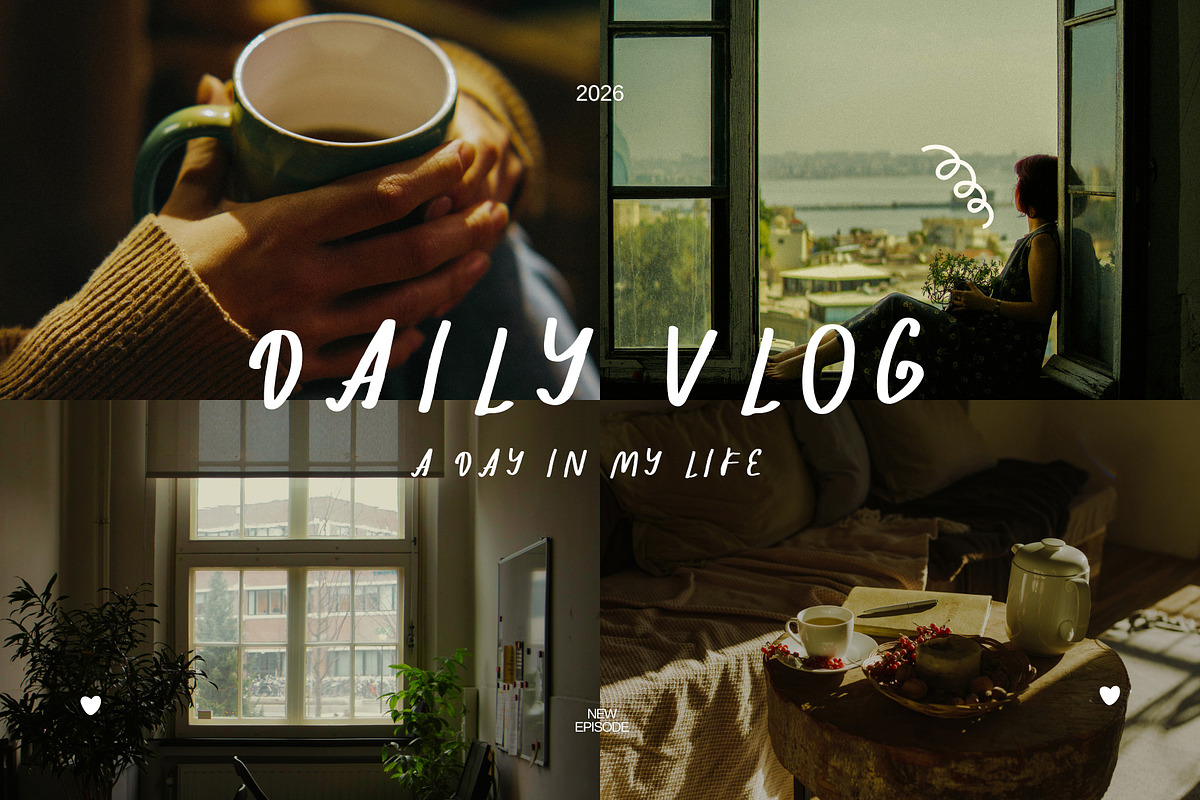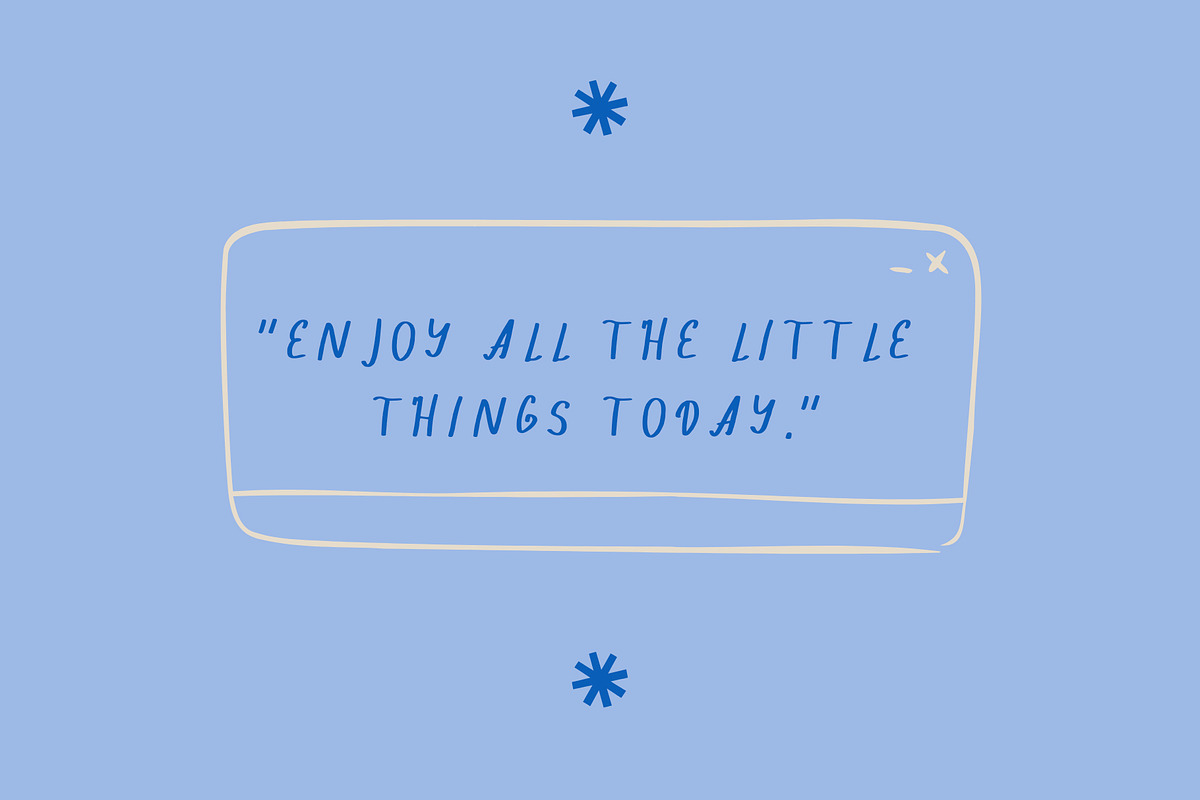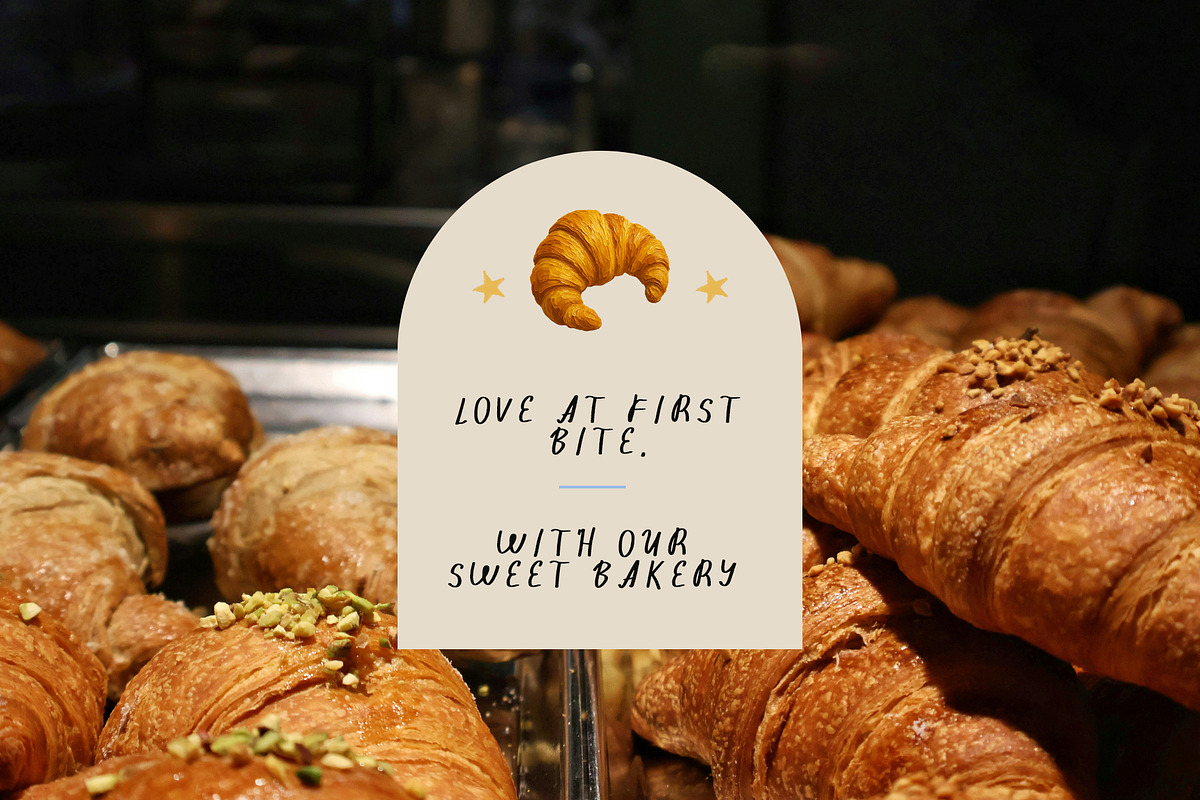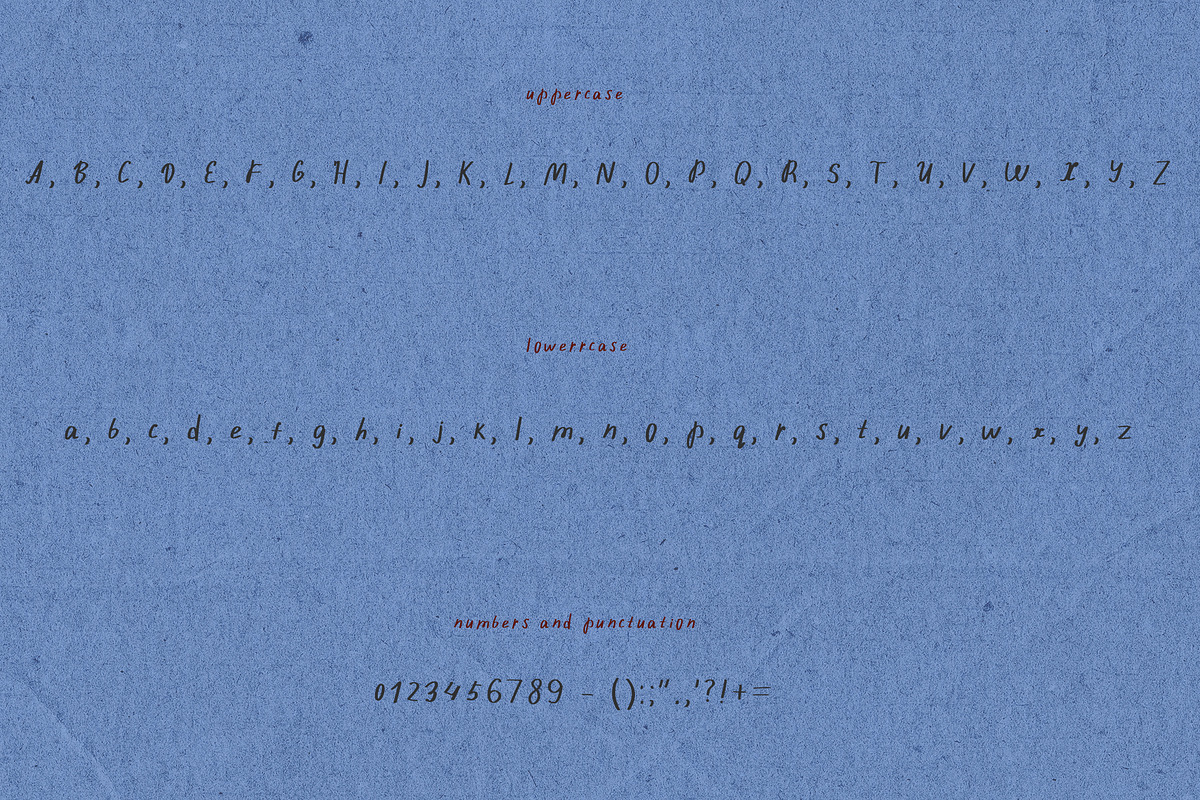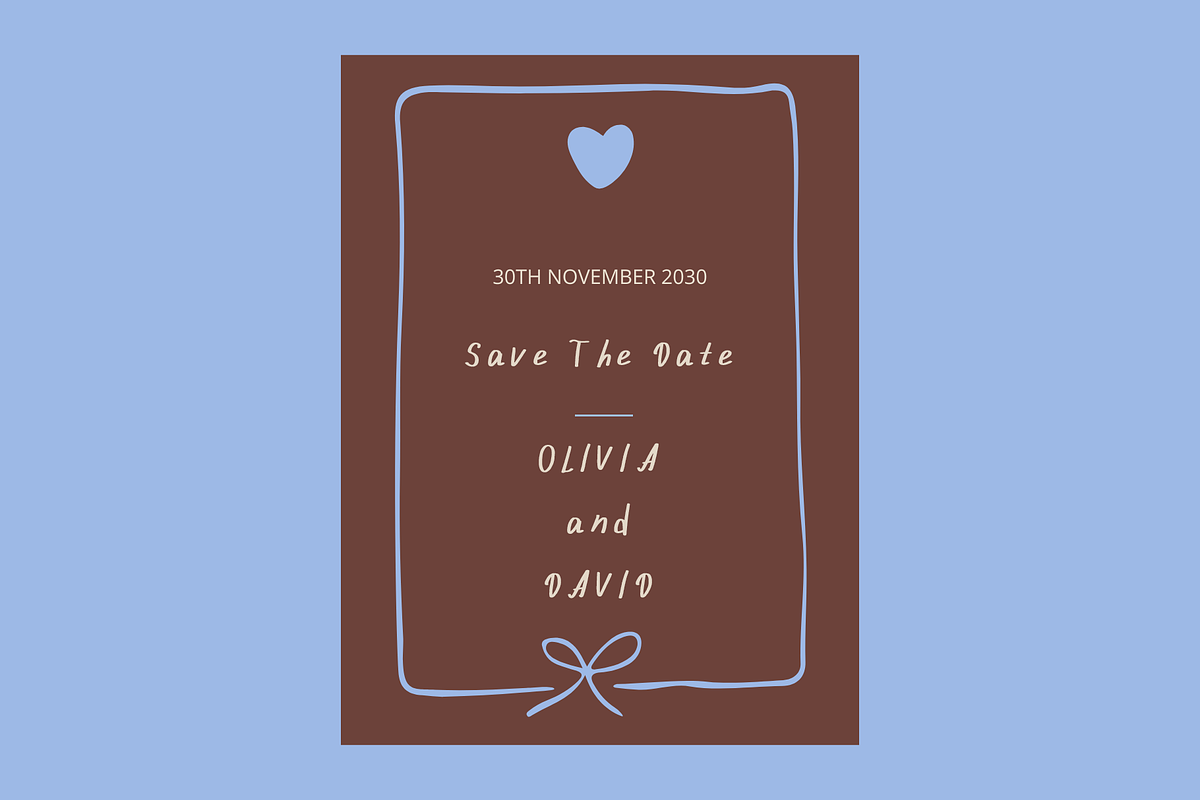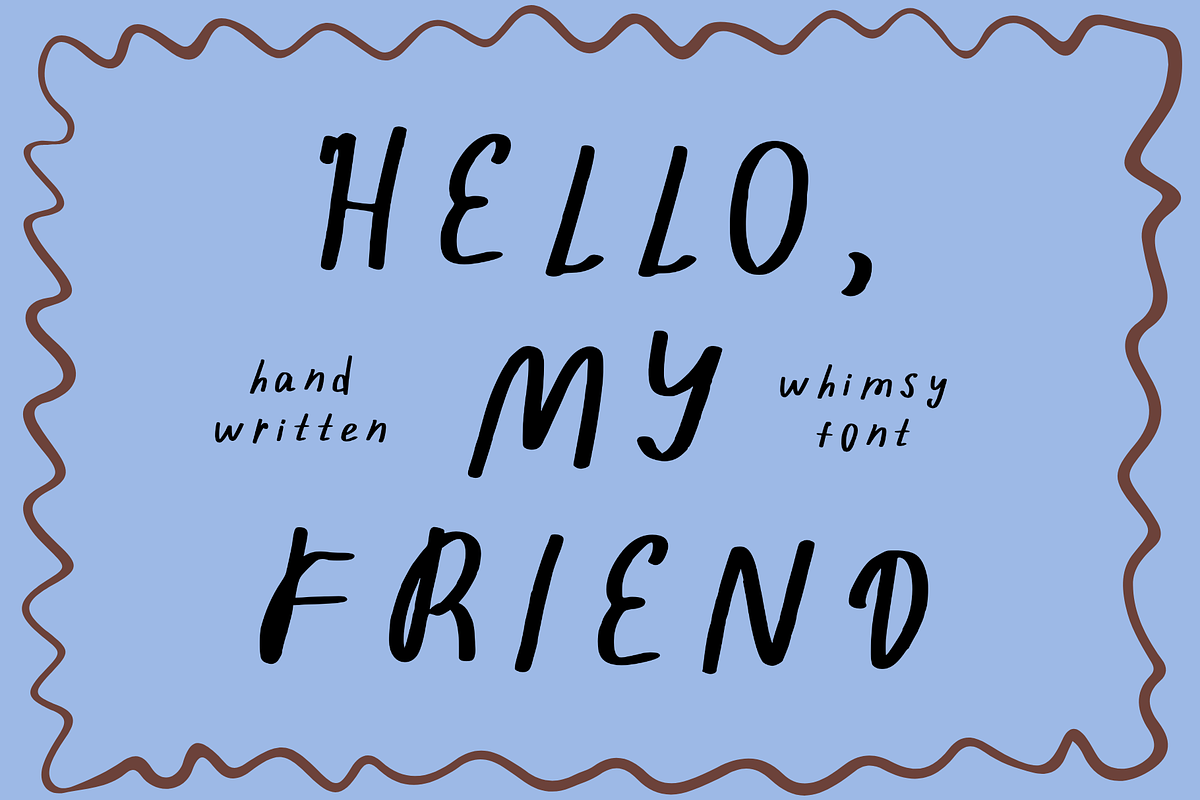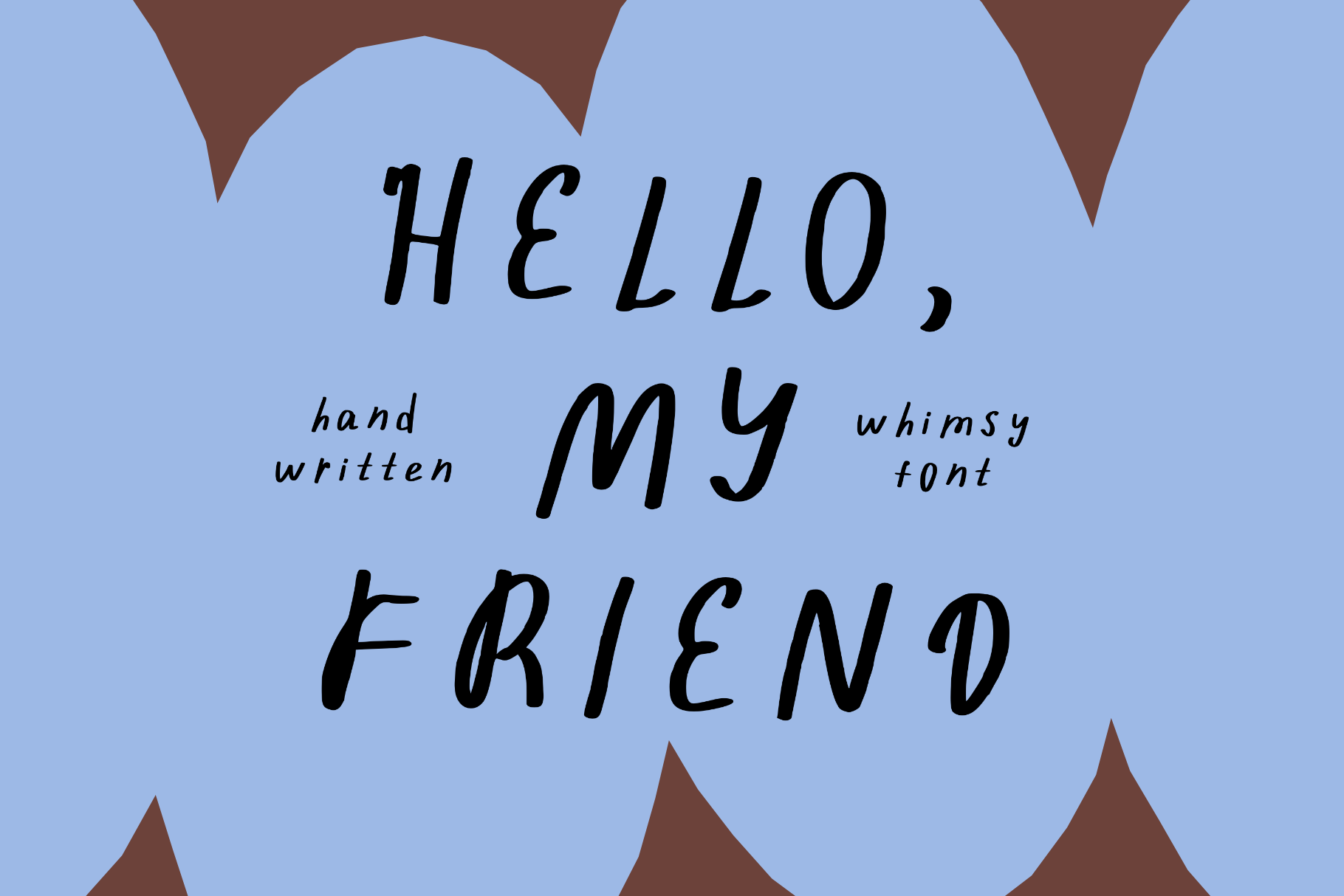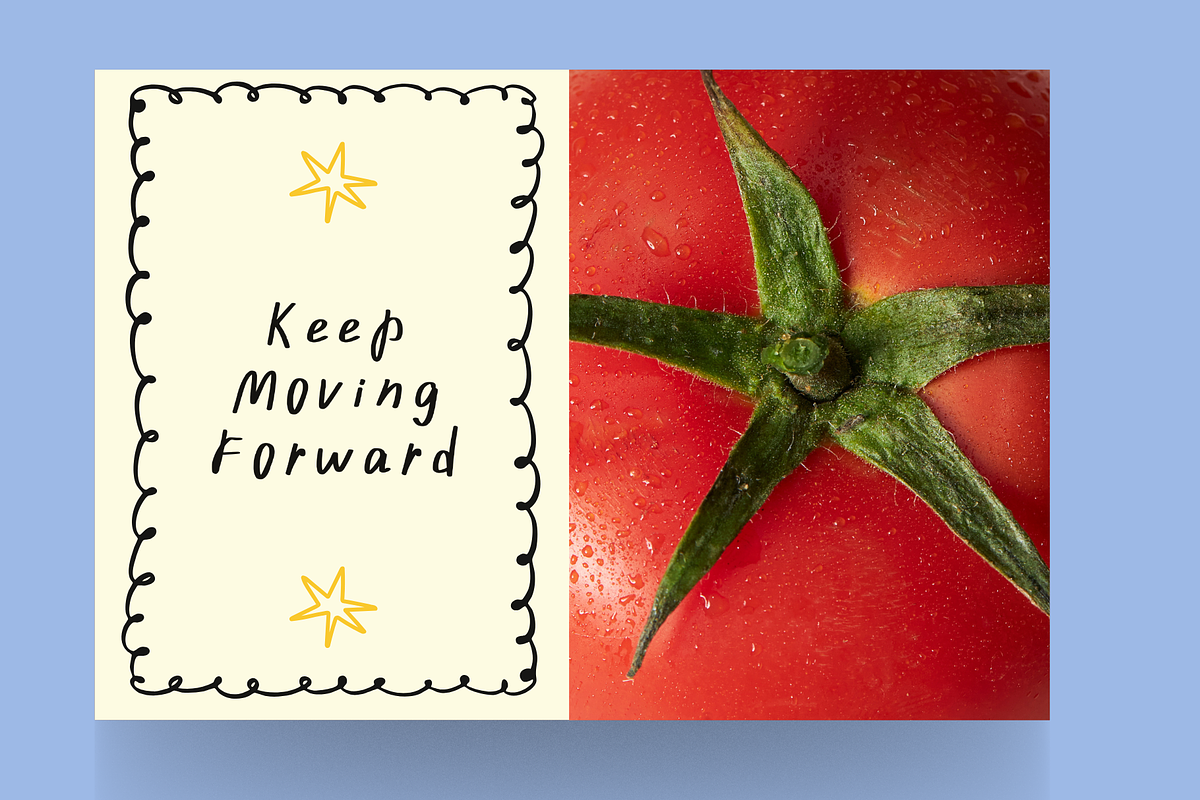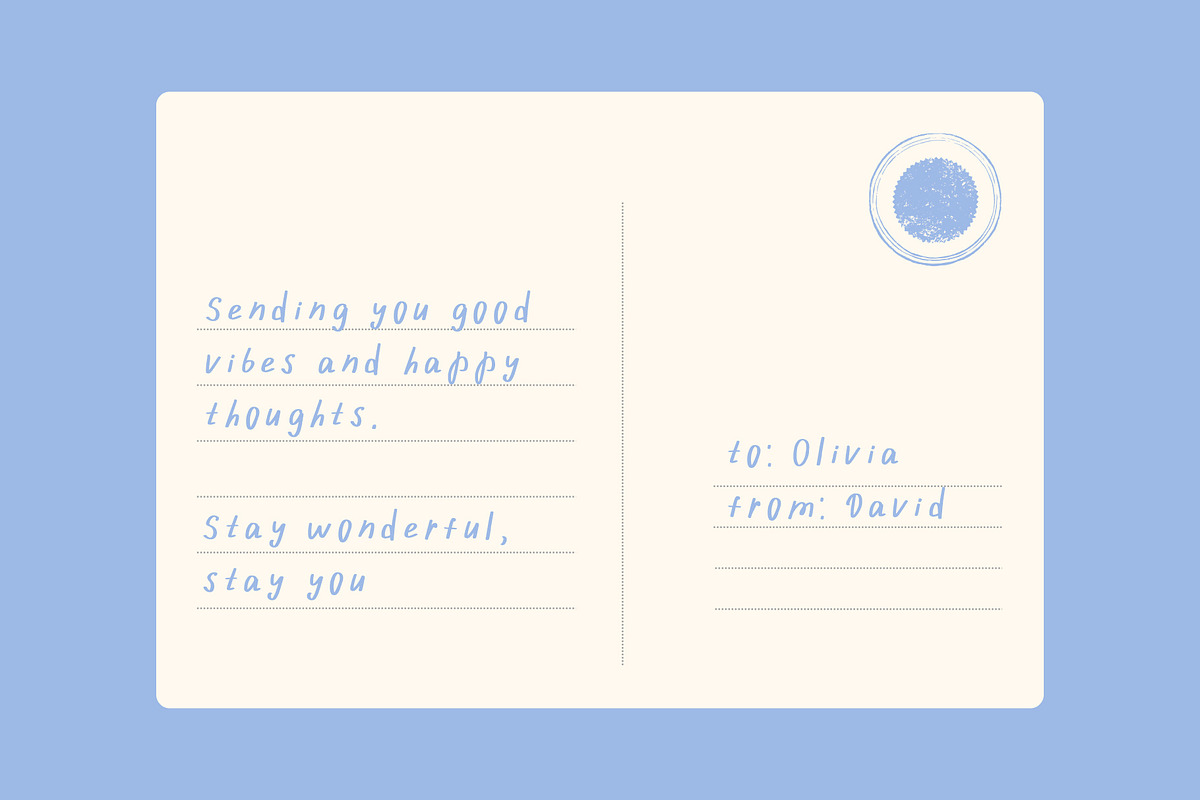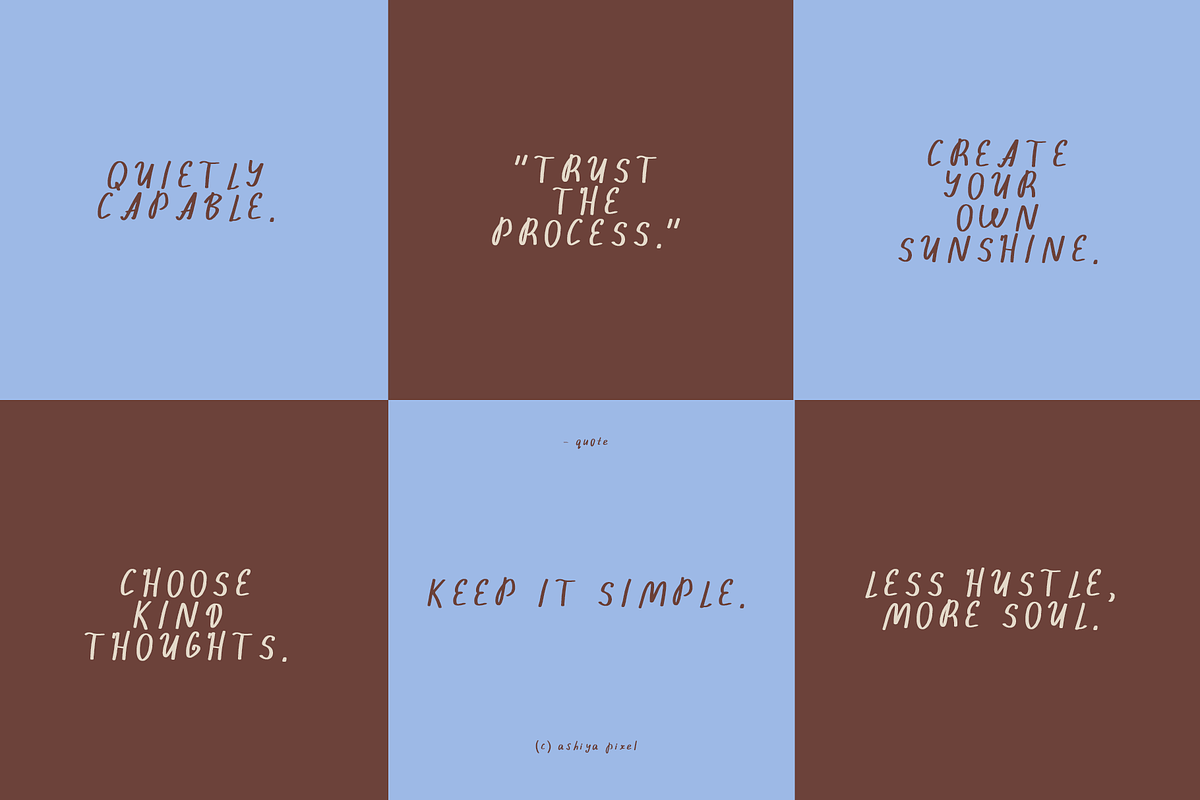
Quirky Elegant Hand-Lettered Font
Perfect For: • Social Media Graphics: Perfect for vertical formats like Instagram Stories, Reels, and Pinterest pins. • Personal Branding: Logos for lifestyle bloggers, creative coaches, and independent artists. • Merchandise: Trendy t-shirt slogans, tote bags, and quote-based art prints. • Digital Planning: Adds a realistic "written" look to digital journals, stickers, and notes.